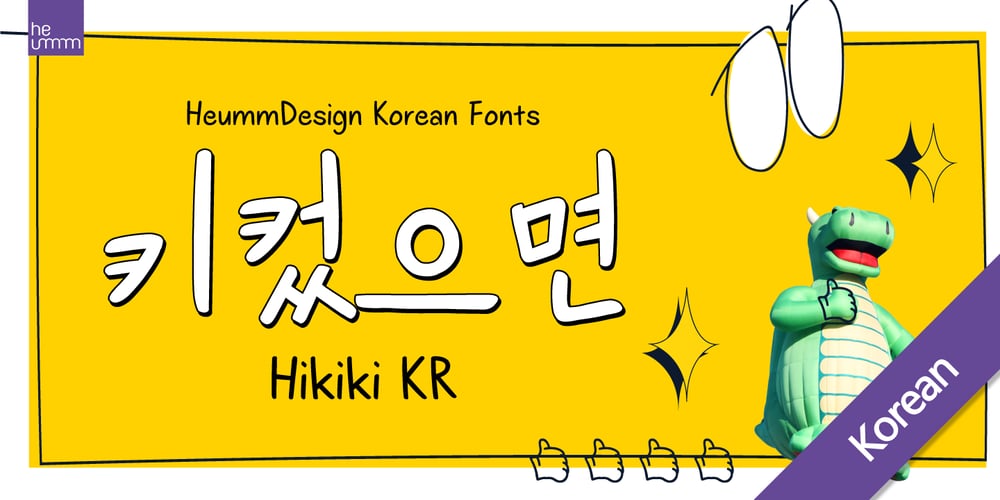
HU Hikiki KR Font Family was designed by Jueun Kim and published by Heummdesign. HU Hikiki KR contains 1 styles and family package options. HU Hikiki KR is a handwritten font that embodies the desire to become an adult as a child and imitate adults. It is a unique typeface with a large initial consonant and a sense of rhythm. This font contains Korean.